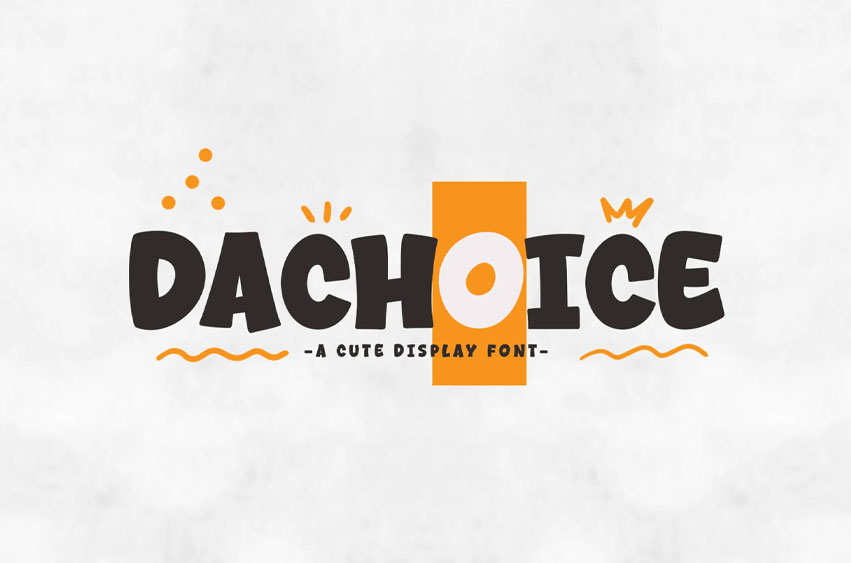
Dachoice Font
Dachoice Font is a playful display typeface with a cheerful theme, perfect for your fun projects.
It is suitable for logos, branding, greeting cards, posters, and any other design you create.